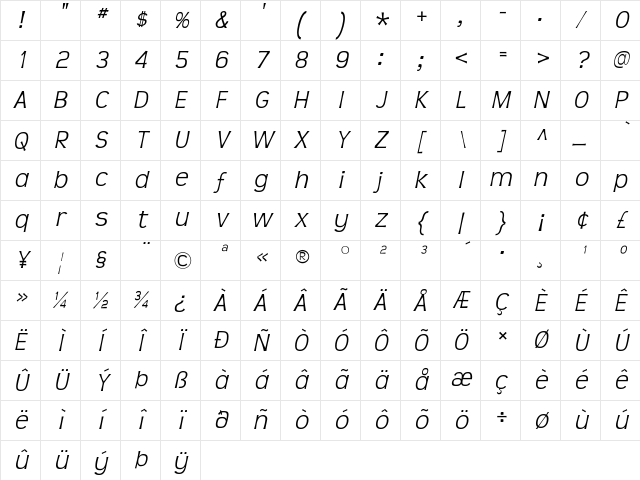
Teen Light Italic
Foundry: Martin Archer / Ray Larabie
Designer: Ray Larabie & Martin Archer
Design Context for Teen
Teen is a composed and adaptable typeface that performs quietly and consistently across a wide range of design contexts. The slanted form adds forward momentum and visual energy. Its slender proportions lend an understated elegance to any composition.
Who designed the Teen Light Italic font?